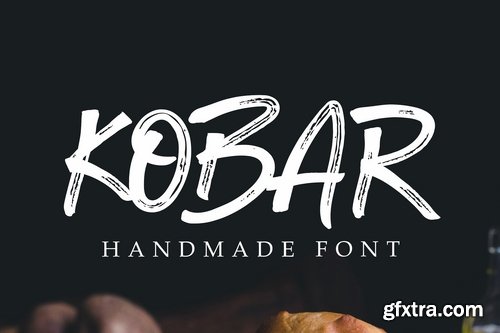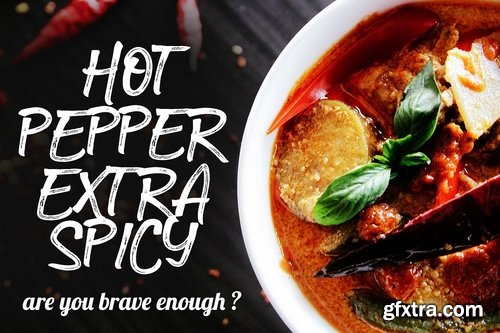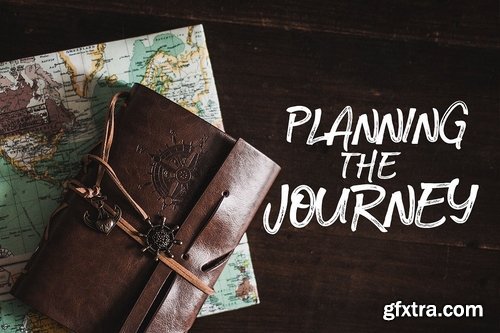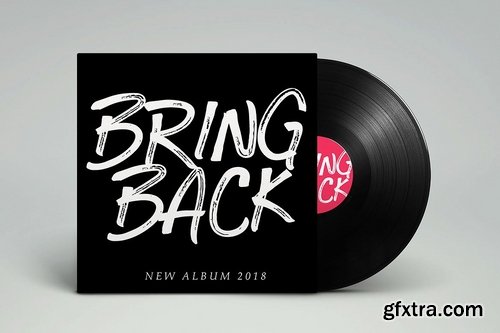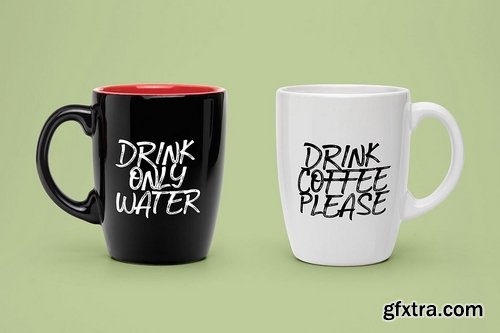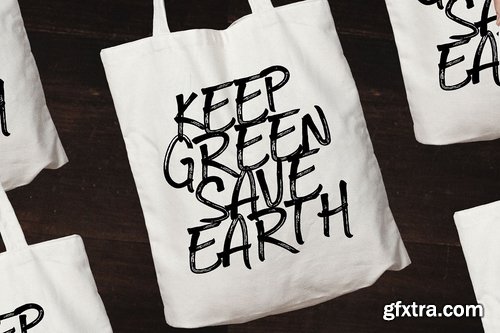
Kobar font is a modern textured font. Very suitable for food poster, for logo, music cover, clothing, and many many cool design projects. Kobar is uppercase only, bold and strong.